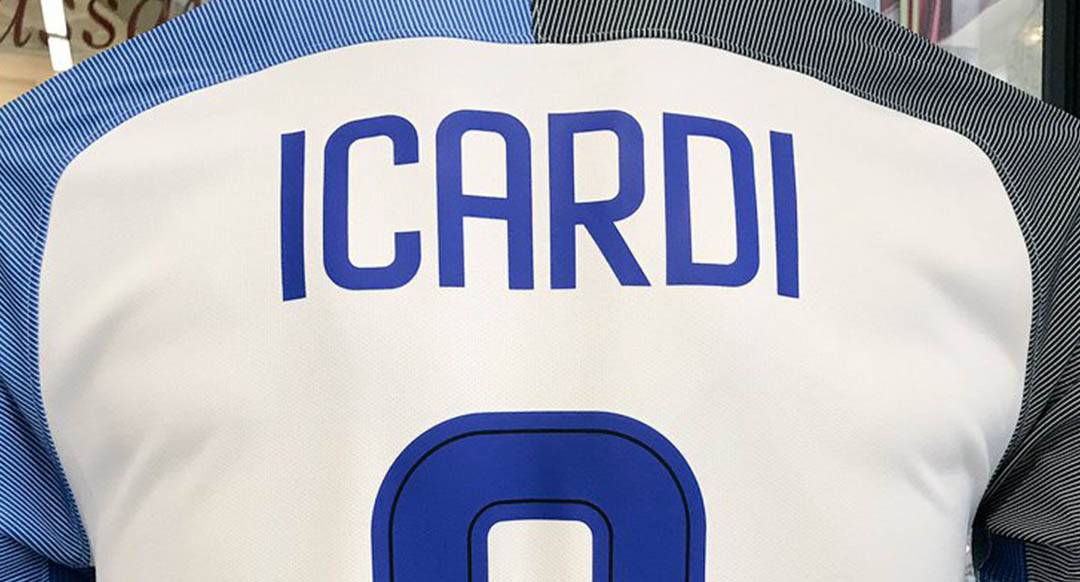
All-New Nike Inter Milan 17-18 Kit Font Released
Update: We have added pictures of the new Nike Internazionale font on the Nike Inter 17-18 away kit.
Inter Milan not only revealed a brand-new kit today, the Italian club also presented a new typeface for the 2017-18 season. The previous Inter kit font had been used for two seasons.
Inter 2017-2018 Kit Typeface
Here are some examples of Inter's new 2017-2018 jersey font.
A very classy design, the new Inter Milan 17-18 typeface is white after last season's font was yellow. The new Internazionale 2017-18 kit numbers come with a monochromatic version of Inter's crest on the lower part.
Compared to the outstanding design of the new Nike 17-18 Inter home kit, the new Inter 2017-18 font is timeless.